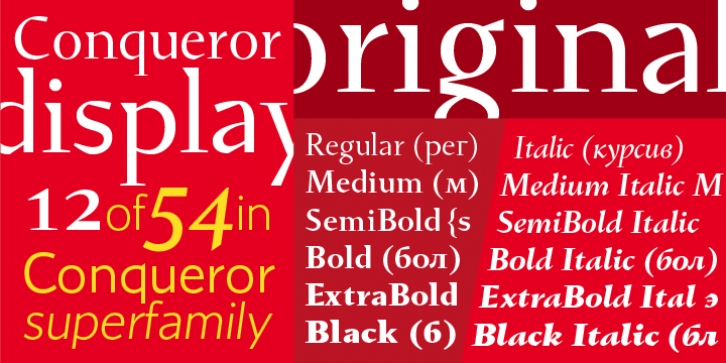
Conqueror the Display — the first of four subfamilies of a super family Conqueror. Font proportions are taken from the fifteenth century Venetian antique, but details are simplified, and the quantity of serifs is reduced to a minimum. It is a font with unusual, sharp image. Display works well in a combination with other members of the Conqueror super family.